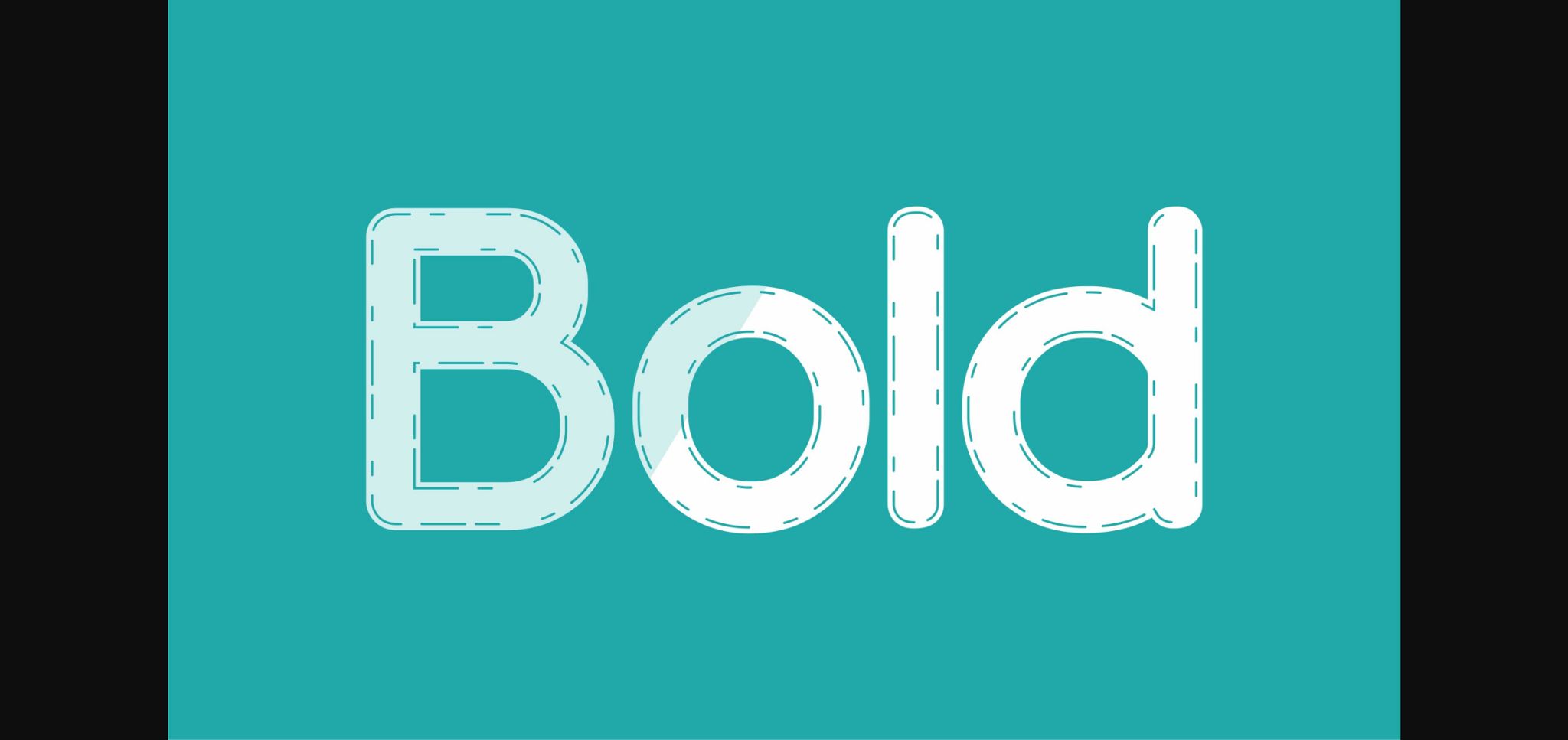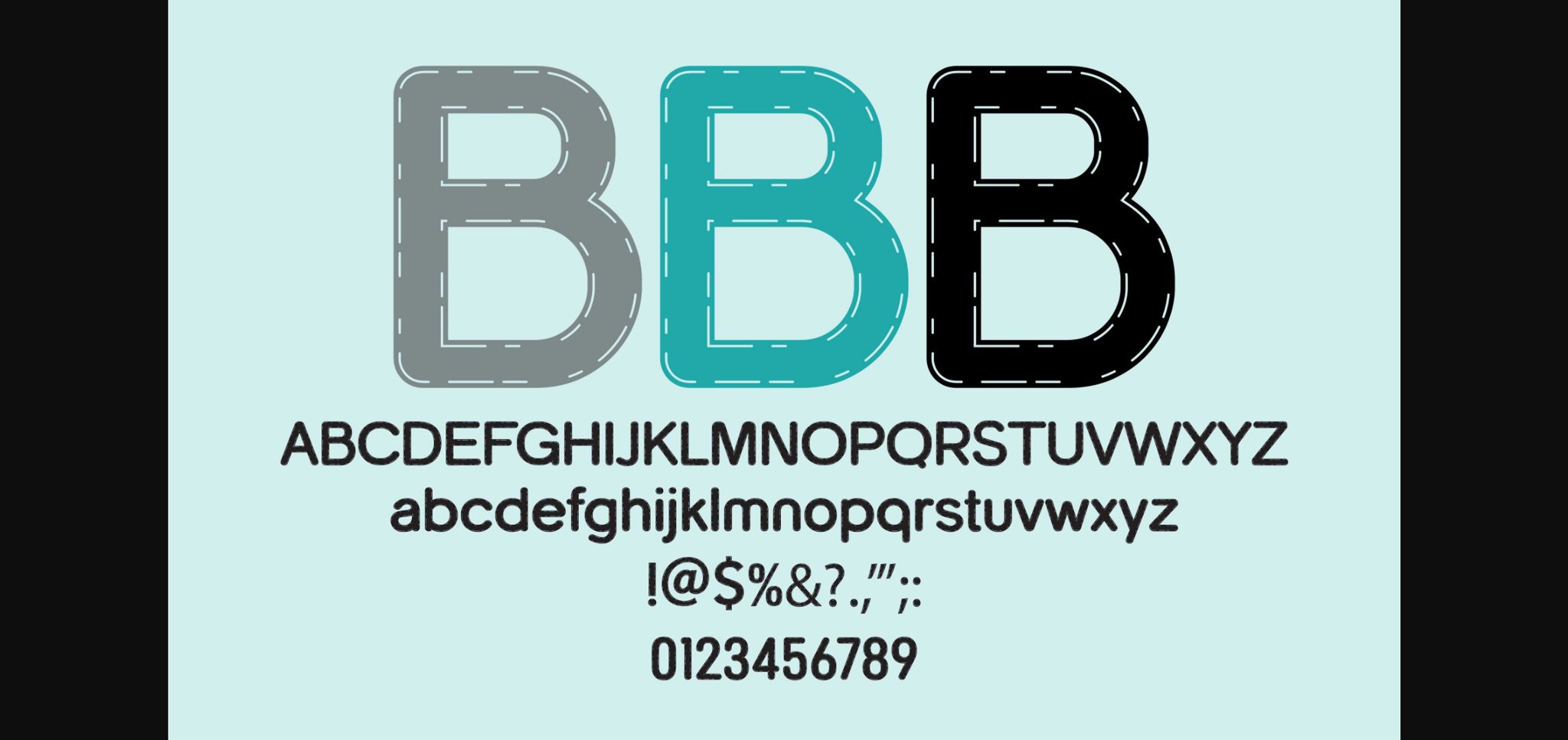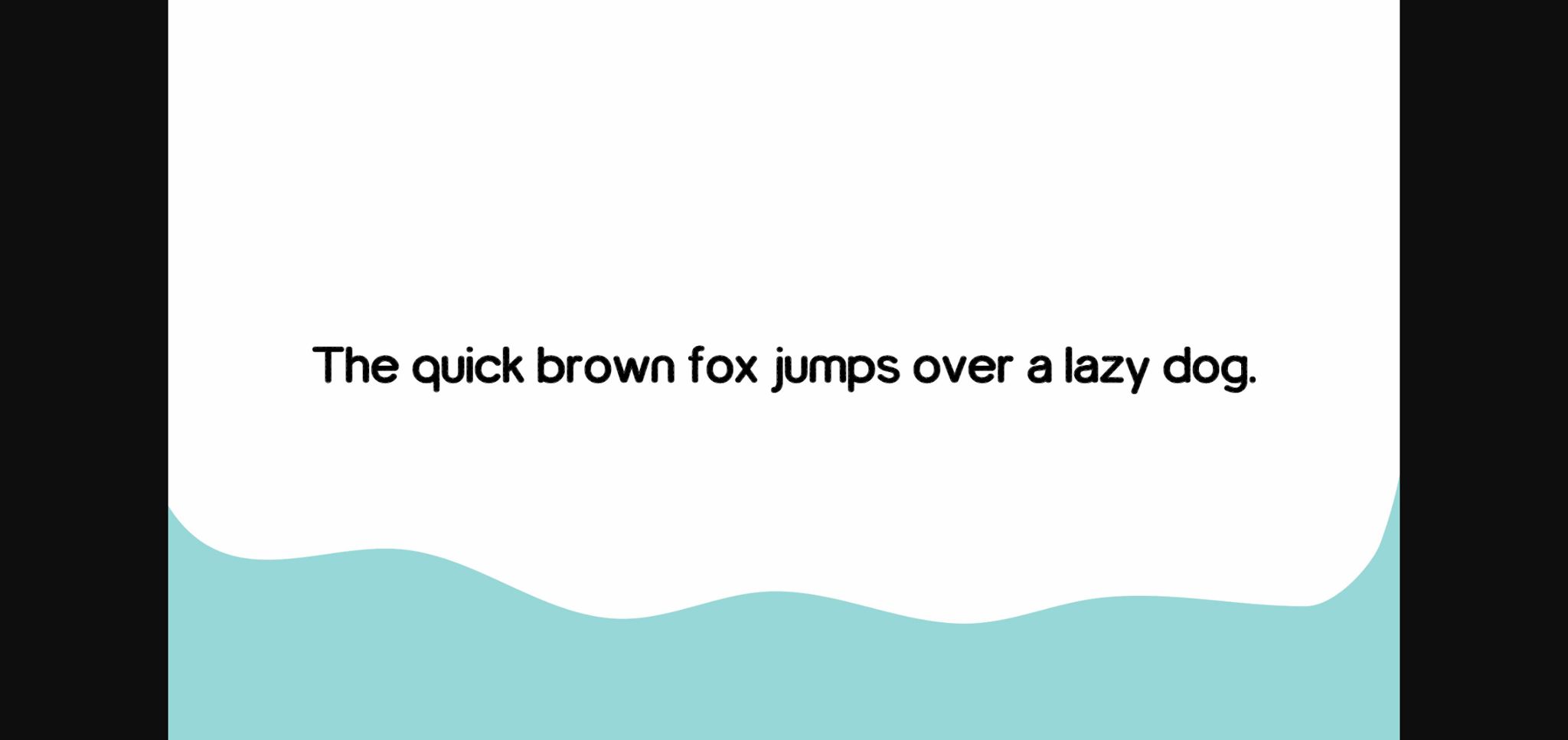
HomeSans Serif FontsBold Font Sans Serif Fonts Bold Font FacebookXPinterestWhatsApp 1 of 5 ... Bold Font Poster 2... Bold Font Poster 3... Bold Font Poster 4... Bold Font Poster 5... About Bold Font Bold is a cool and modern sans-serif font. Add it to your creative projects and enjoy the results! DOWNLOAD NOW People also explored Artgravis Font Seilotta Font Kansas Font Morning Christmas Font Peach Punch Font Whitedove Script Font Swirl Floral Monogram Font Silver Queen Font Epidemik Font 331 0 TagsBoldBold Font Previous articlePaname FontNext articleCauva Font LEAVE A REPLY Cancel reply Comment: Please enter your comment! Name:* Please enter your name here Email:* You have entered an incorrect email address! Please enter your email address here Website: Save my name, email, and website in this browser for the next time I comment. Personal Use Free Adelia Font Personal Use Free Read more about this font I Am Exceptional Personal Use Free Read more about this font White Rose Personal Use Free Read more about this font Boby Personal Use Free Read more about this font BLOG To increase your work productivity, choose the most readable fonts. In today's fast-paced work environment, where digital communication and information consumption are integral to our daily routines, the choice of fonts can significantly impact... Free vs Paid Fonts: Why Investing in Premium Fonts Is Worth It Top 7 Google Fonts Alternatives for Faster and Privacy-Friendly Web Design (2025) Free Fonts Risk: Why Free Fonts Can Be Dangerous for Designers